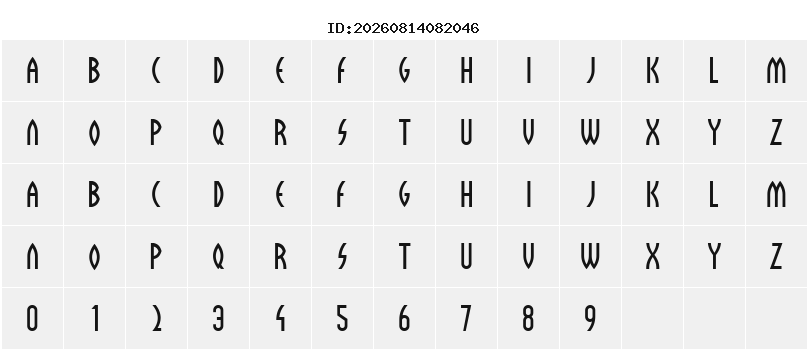
• Font Name: Sulphur
About Sulphur.ttf
Sulphur.ttf is a modern, elegant sans-serif font designed for ultimate readability and visual harmony. Perfect for branding, headlines, web design, and print materials.